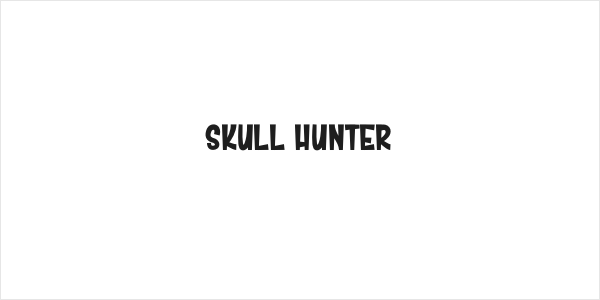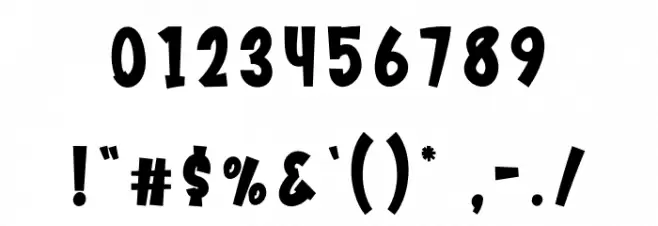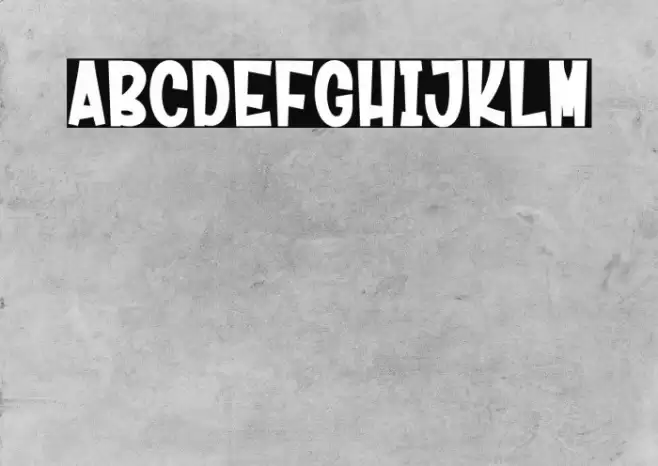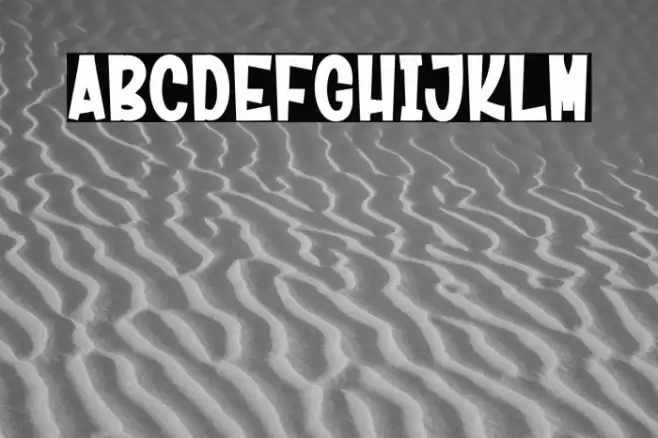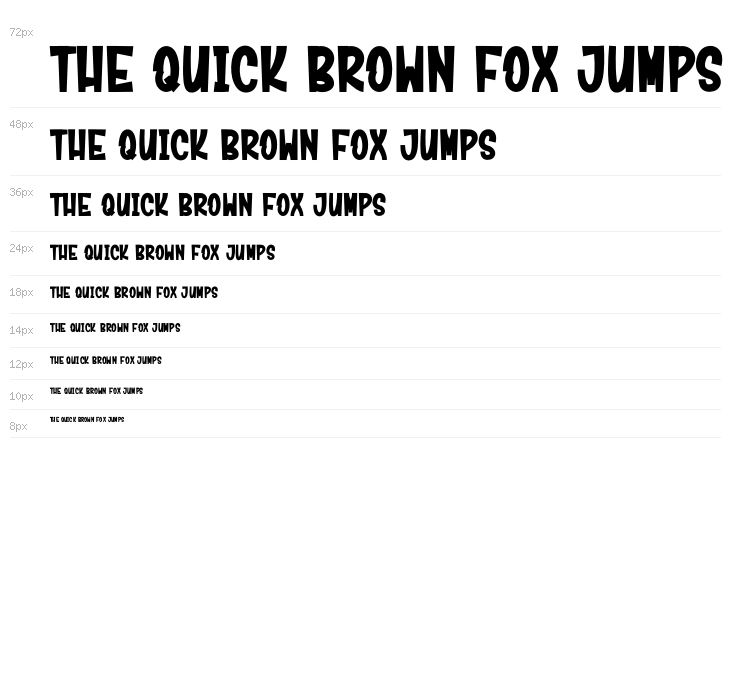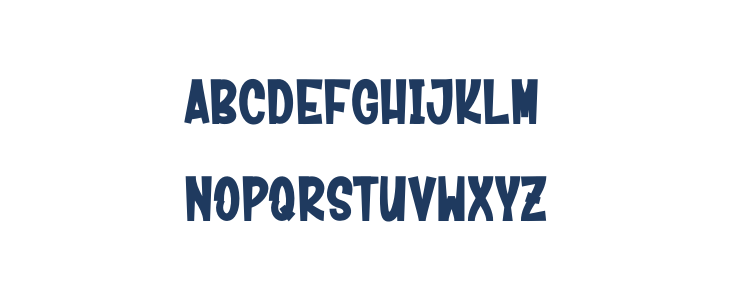
Skull Hunter Font
Skull Hunter Description
This font features a bold and playful design with a slightly irregular and jagged appearance, giving it a dynamic and energetic feel. The characters are thick and robust, with a hand-drawn aesthetic that adds a touch of whimsy and creativity. The uppercase and lowercase letters maintain a consistent style, while the numbers and special characters complement the overall look with their quirky shapes. This font is ideal for projects that require a fun and eye-catching typeface.
| Overall Style | Playful, Energetic, Hand-drawn |
| Proposed Projects | Perfect for children's books, comic strips, posters, and playful branding. |